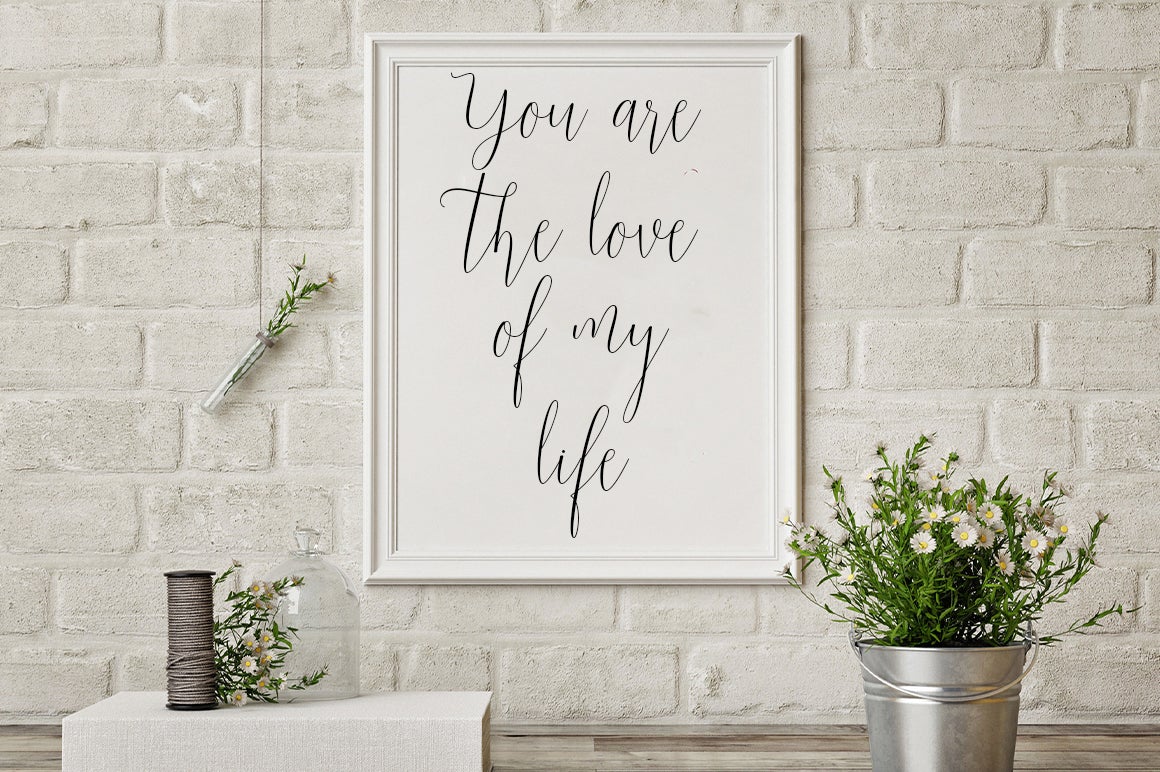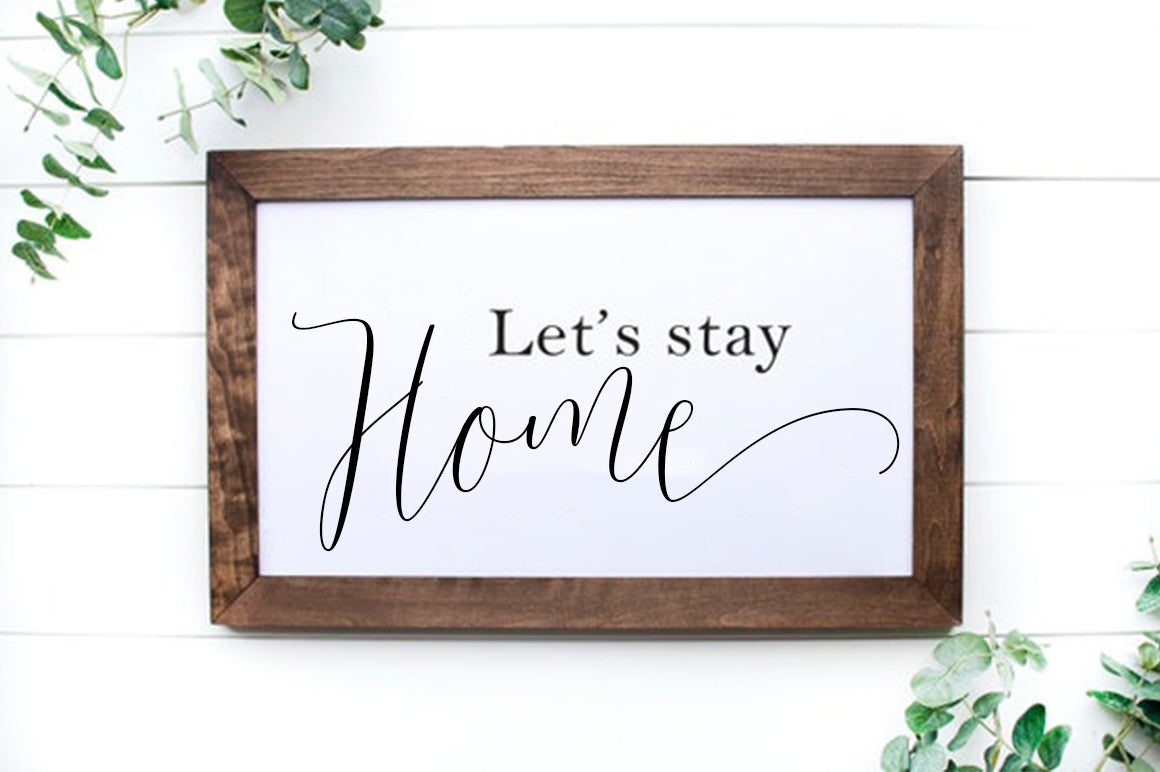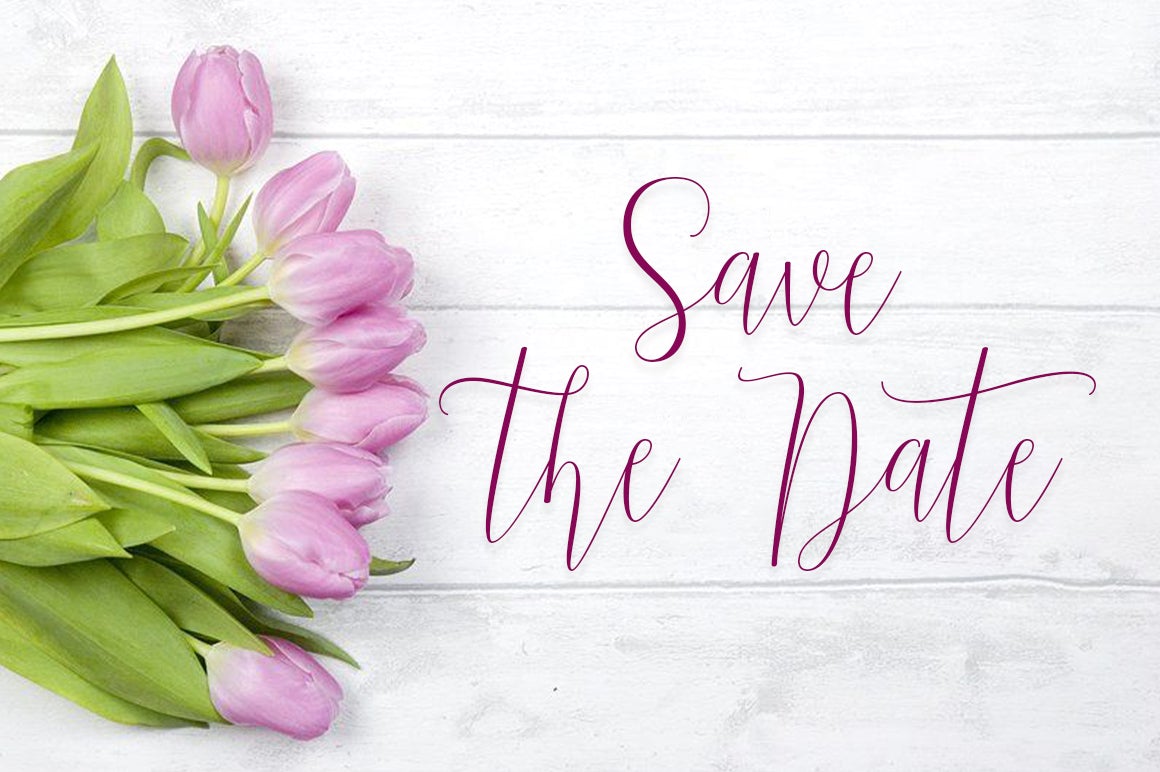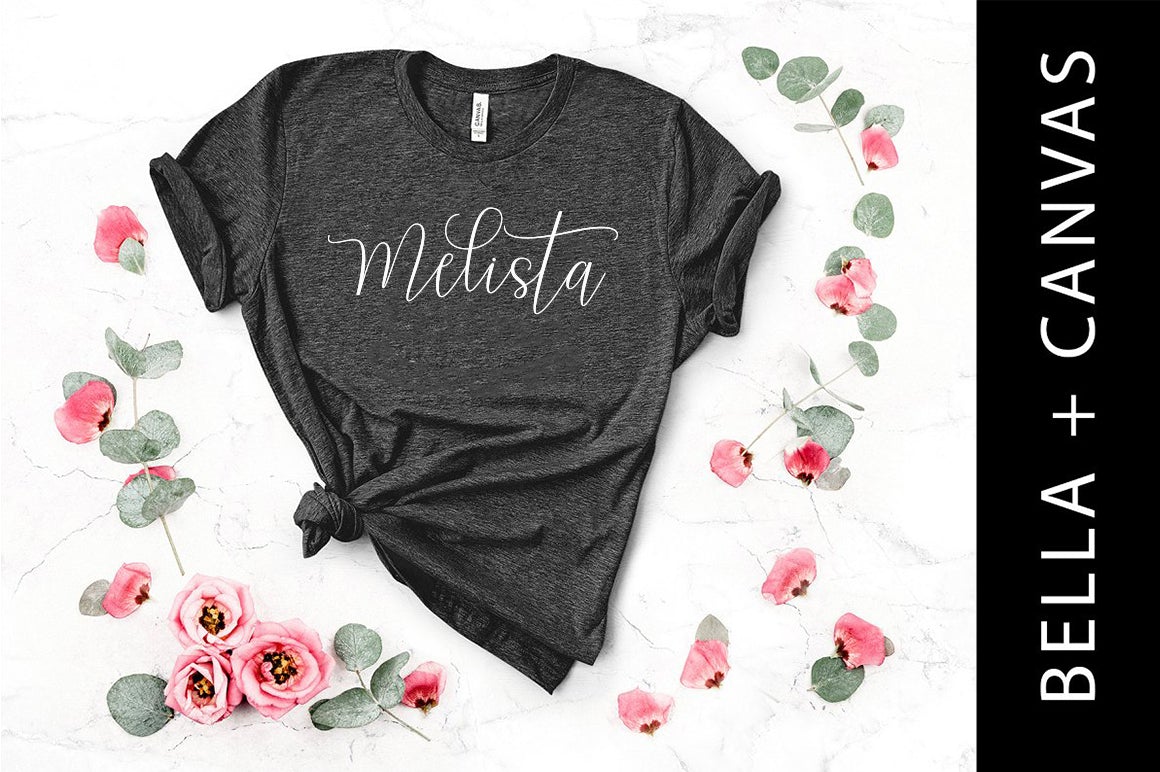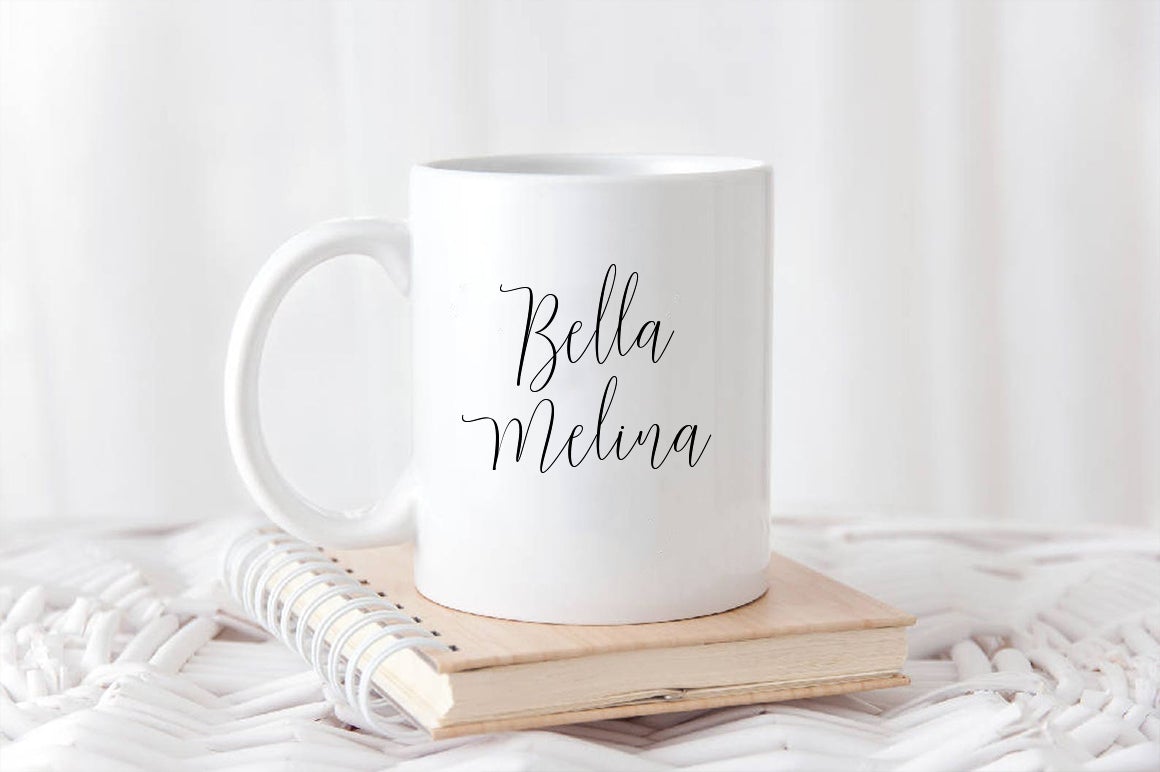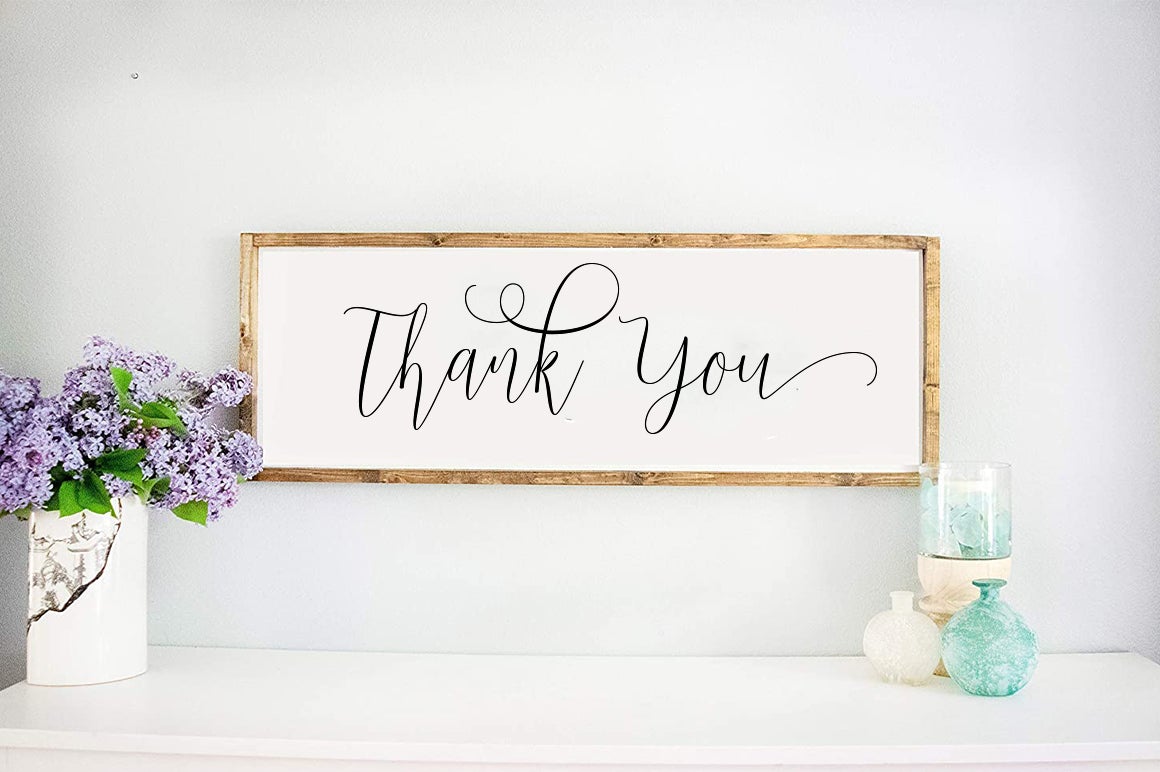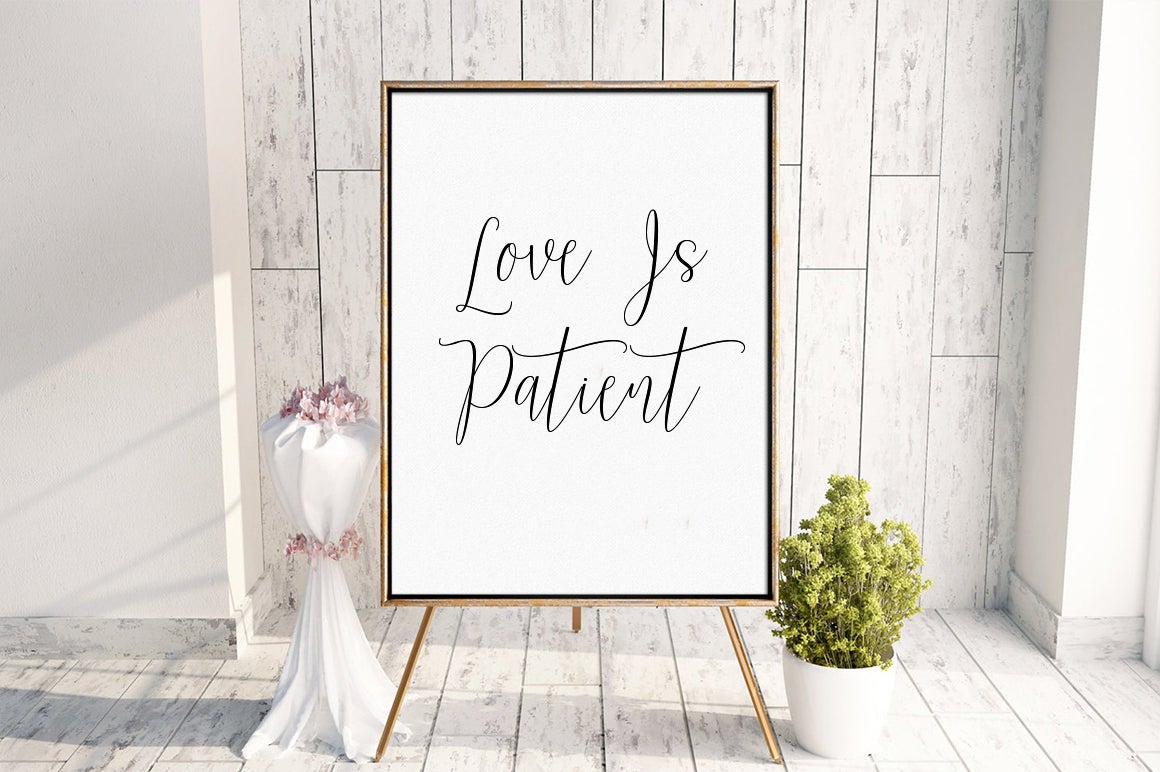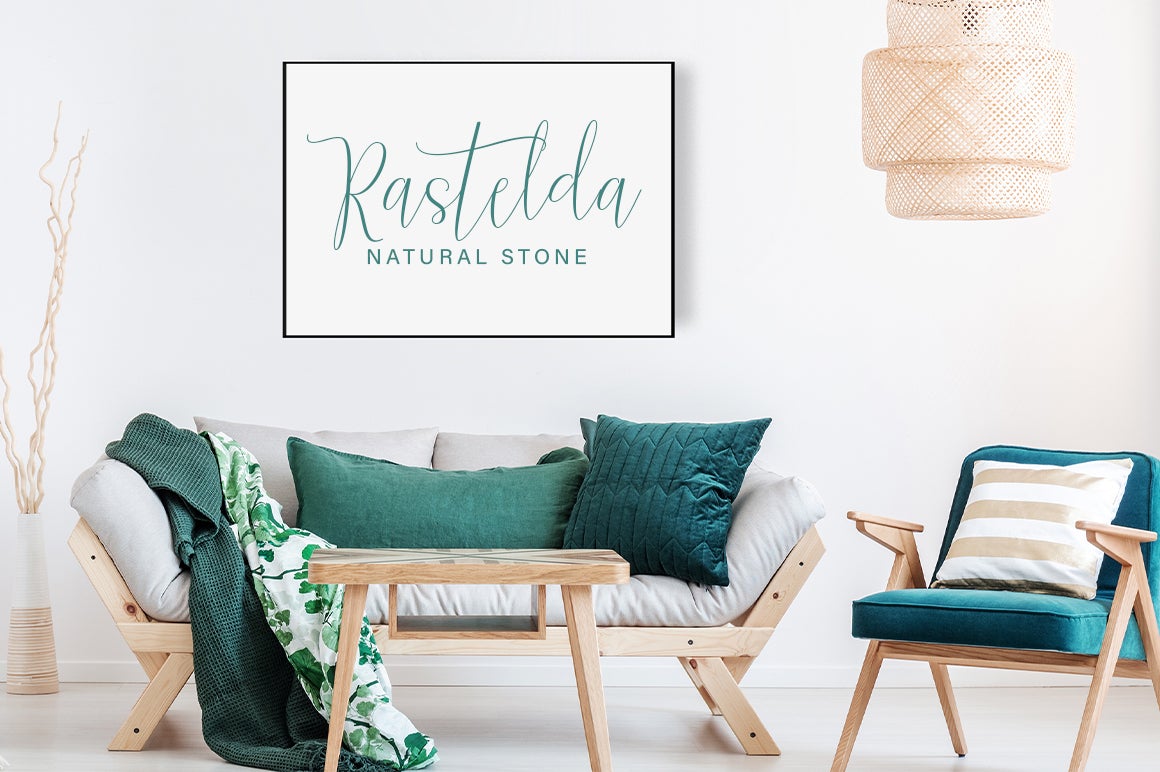
Marioline
About Marioline
Marioline is a sweet and gentle handwritten calligraphy font. Fall in love with its authentic feel and use it to create gorgeous wedding invitations, beautiful stationary art, eye-catching social media posts, and cute greeting cards. This font is PUA encoded which means you can access all the funny glyphs and swash easily!